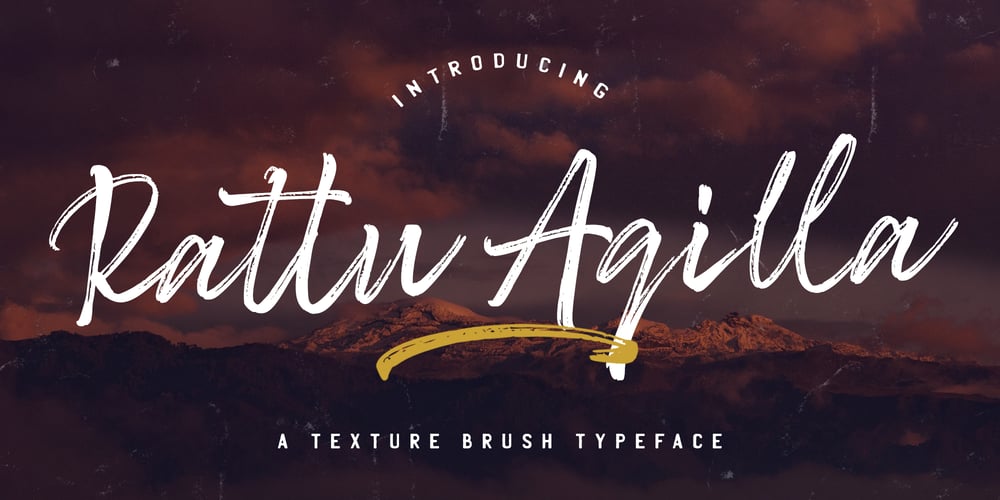
Rattu Aqilla Font Family was designed by Virgiawan Listanto and published by Stringlabs Creative Studio. Rattu Aqilla contains 1 styles and family package options. Rattu Aqilla is a textured handwritten brush font, created with the help of a authentic brush. Get inspired by its unique and beautiful style and add it to your favorite designs!